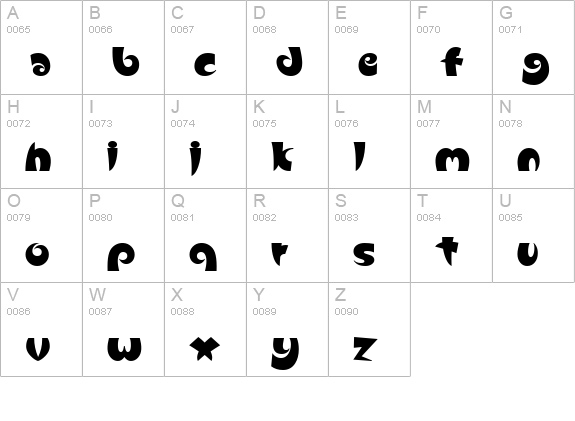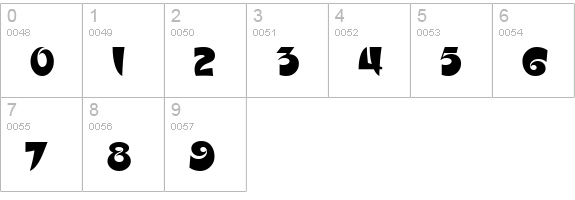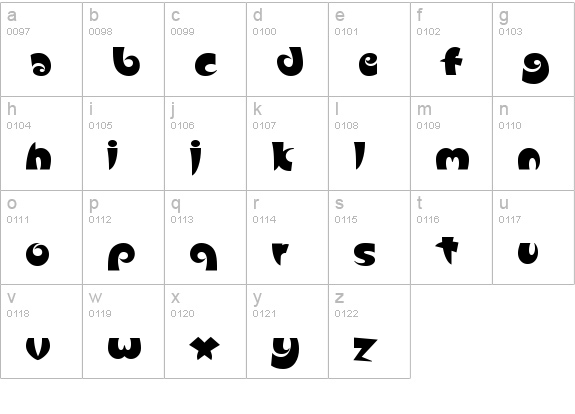
Slugfest Font Details
Introducing Slugfest, a bold and energetic font that packs a punch in every letter. This dynamic typeface is the perfect choice for designs that demand attention and make a statement. With its strong and commanding presence, Slugfest is sure to leave a lasting impression. Each character of Slugfest is meticulously crafted with a unique combination of sharp edges and rounded curves, creating a harmonious balance between strength and versatility. Whether it's used for headlines, logos, posters, or any other creative project, this font is guaranteed to deliver impact and captivate audiences. What makes Slugfest even more enticing is that it is available for free download at FontsMarket.com. Yes, you read that right – this powerful font can be yours without spending a dime. Simply visit FontsMarket.com and start unleashing the potential of Slugfest in your designs. With Slugfest, you have the freedom to explore its various weights and styles, allowing you to customize and adapt the font to suit your specific needs. Whether you prefer a heavier, bolder look or a more refined and elegant touch, Slugfest offers the flexibility to bring your vision to life. So, why settle for ordinary when you can have extraordinary? Download Slugfest today and experience the thrill of using this exceptional font that is freely available at FontsMarket.com. Make a bold statement, grab attention, and leave a lasting impression with this stunning font. The possibilities are endless, and the choice is yours.